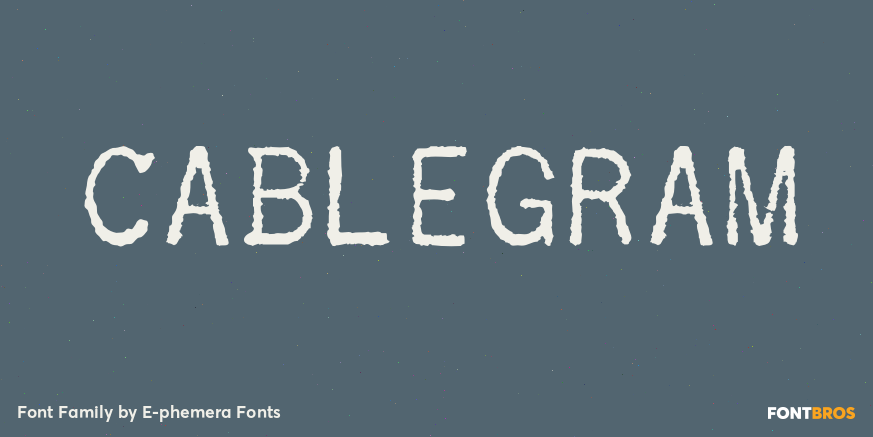
Font BrosDistressedSans Serif Cablegram 0 80 FacebookTwitterPinterestWhatsApp 1 of 1 About Cablegram This font by E-phemera is based on two different telegrams: the uppercase alphabet is from an Algerian telegram from 1903, and the lowercase is from a Yugoslavian telegram from 1915.  DOWNLOAD NOW